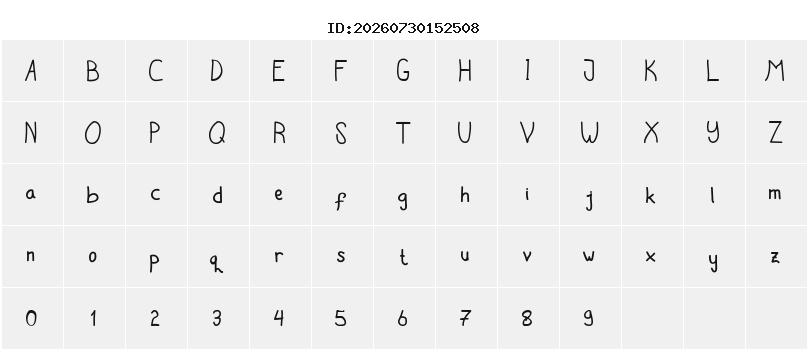
latian Preview
About latian.ttf
latian.ttf is a modern, elegant sans-serif font designed for ultimate readability and visual harmony. Perfect for branding, headlines, web design, and print materials.